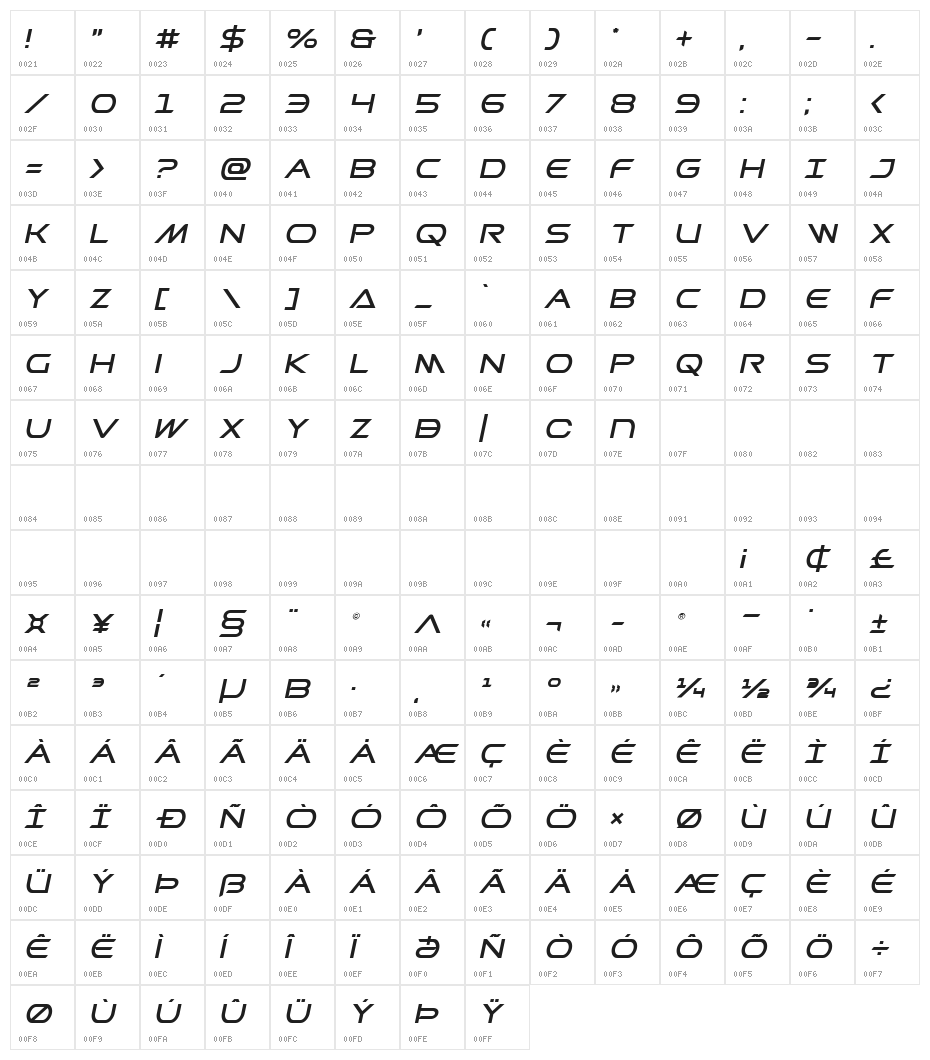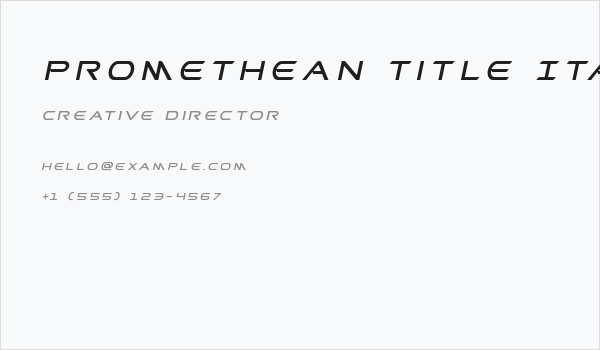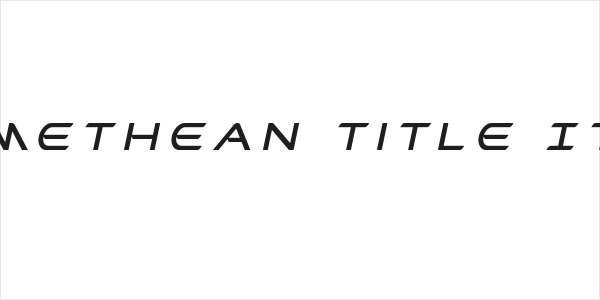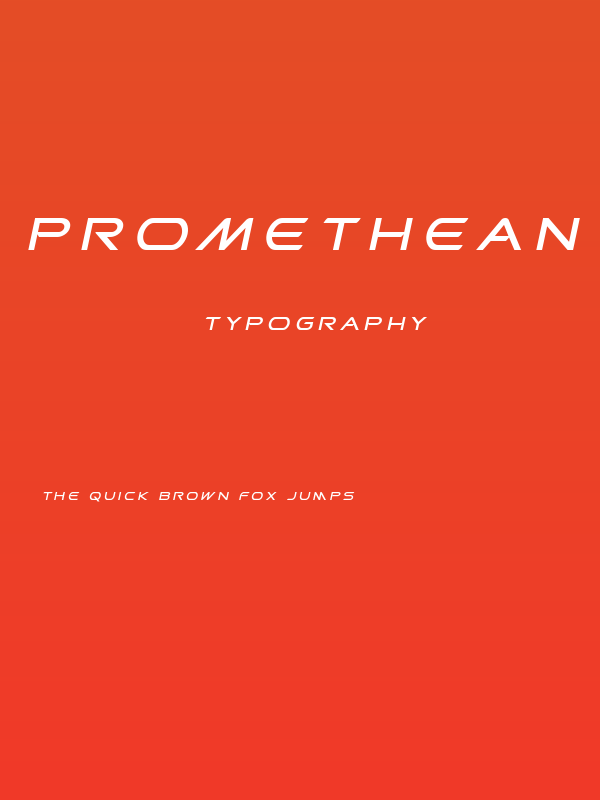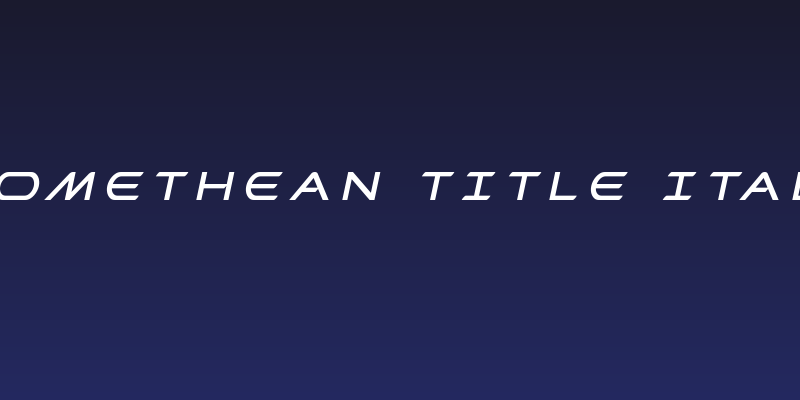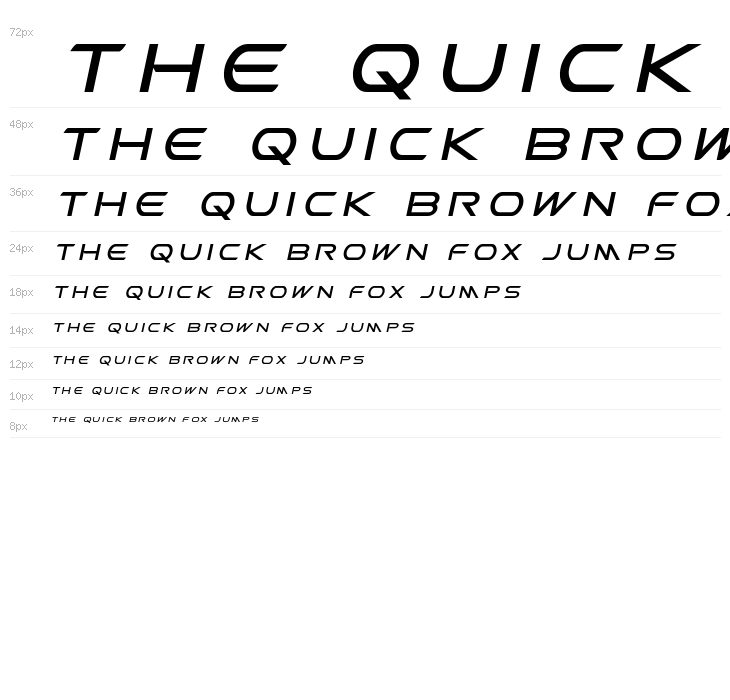
Promethean Title Italic Font
Promethean Title Italic Description
This font features a sleek and modern italic style, characterized by its clean lines and subtle slant. The uppercase and lowercase letters maintain a consistent angle, providing a sense of motion and dynamism. The numerals are designed with a similar slant, ensuring uniformity across all characters. Special characters are crafted with precision, complementing the overall aesthetic. The font's design is minimalist yet impactful, making it suitable for a variety of applications where a contemporary and stylish appearance is desired.